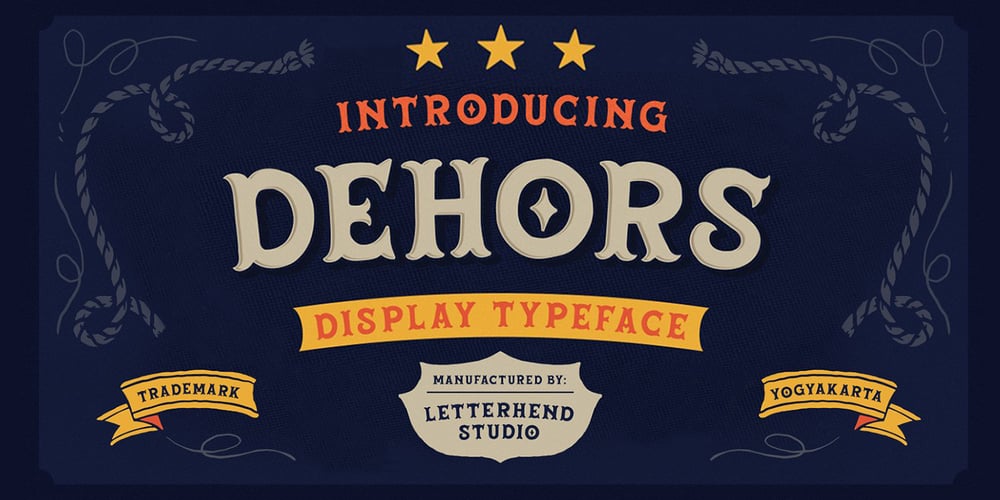
Dehors
Dehors font
Dehors Font Family was designed by Hendry Juanda and published by Letterhend. Dehors contains 1 styles and family package options. Dehors is a western display typeface. It is suitable for design needs with a touch of classic western, especially in logo, and the other various formal forms such as invitations, labels, logos, magazines, books, greeting / wedding cards, packaging, fashion, make up, stationery, novels, labels or any type of advertising purpose.Features : numbers and punctuation multilingual PUA encoded We highly recommend using a program that supports OpenType features and Glyphs panels like many of Adobe apps and Corel Draw, so you can see and access all Glyph variations.